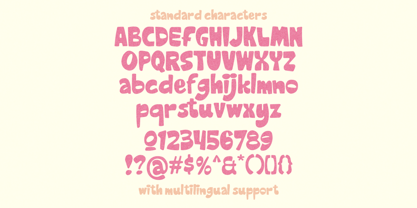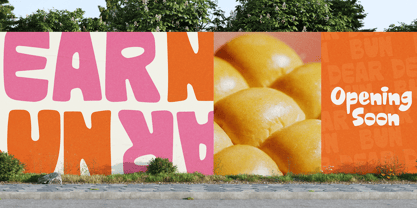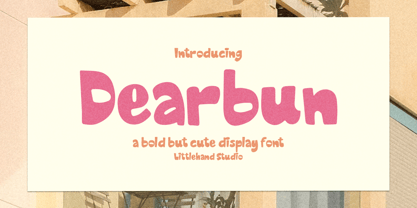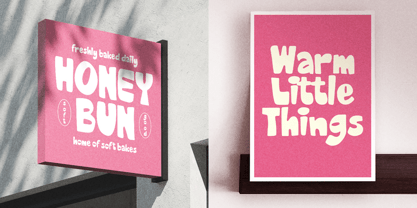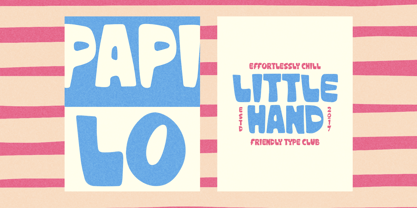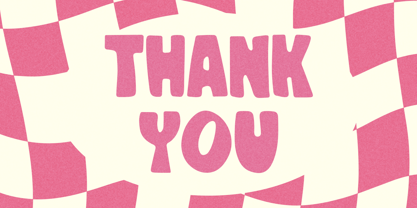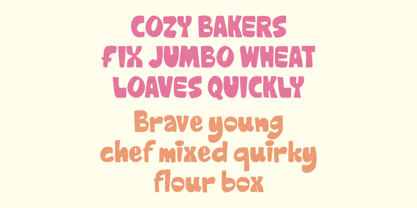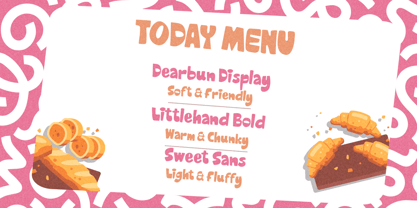
Dearbun Display
The Dearbun Display Font Family was designed by Aryo Pamungkas and published by Littlehand. Dearbun Display contains 1 styles. More about this family
Dearbun is a bold yet cute display font with chunky shapes, rounded corners, and a soft handmade feel. The letterforms are thick and friendly, creating a playful and modern look that feels cheerful without being too loud. Its vibe is sweet, casual, and easygoing, making it perfect for headlines, posters, packaging text, social media graphics, kids projects, stickers, and branding designs that need a bright and lovable character. Features : Uppercase & lowercase Numbers and punctuation Alternates & Ligatures Multilingual Support PUA encoded